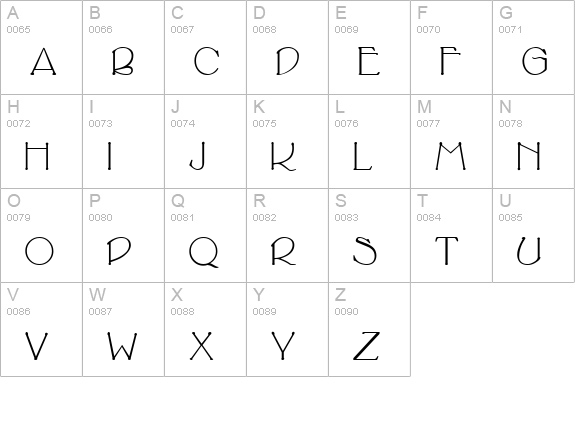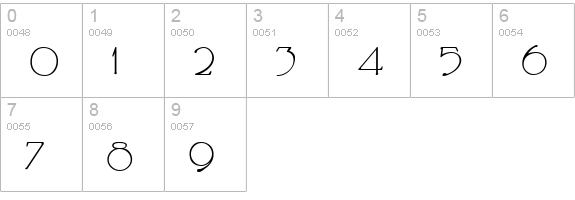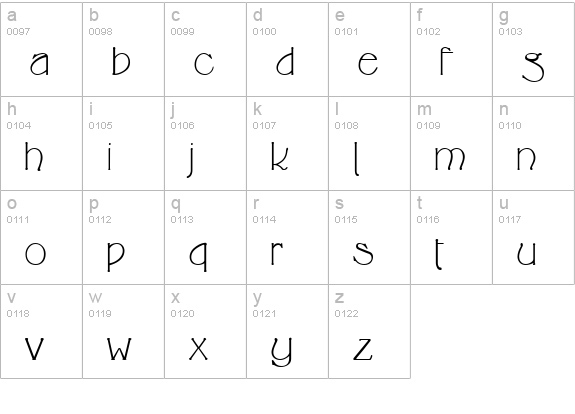
Cricket Regular is the standard, neutral variant in the Cricket typeface family \xE2\x80\x94 well suited to general body text, paragraphs, and standard typographic work.
Cricket Regular font is a classic and stylish typeface that is perfect for various design projects. Its clean lines and modern aesthetic make it versatile for both print and digital applications. This font is ideal for creating elegant logos, branding materials, posters, and more. The best part about Cricket Regular font is that it is available for free! You can download this font at FontsMarket.com and start using it in your projects right away. Don't miss out on the opportunity to add this beautiful and timeless font to your collection. Get Cricket Regular today and elevate your designs with its sophisticated charm.